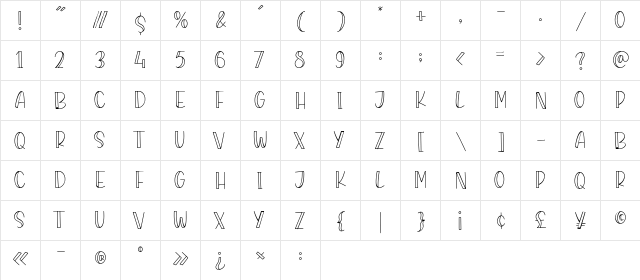
MAGICLINE Regular
| Designer | Balpirick Studio |
Design Context for MAGICLINE Typeface
MAGICLINE is a composed and adaptable typeface that performs quietly and consistently across a wide range of design contexts.